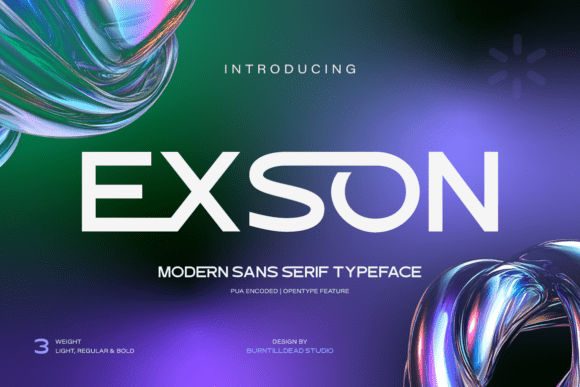
Introducing Exson Font: The Ultimate Modern Sans Serif Typeface
In the world of typography, fonts play a crucial role in conveying the tone and personality of a brand or design project. With the ever-evolving landscape of digital design, it’s essential to have a font that not only stands out but also adapts seamlessly to various contexts. This is where Exson Font comes in – a clean, modern sans serif typeface designed to bring a futuristic, bold presence to your projects.
What is Exson Font?
Exson is a thoughtfully crafted typeface that boasts a sleek, modern aesthetic. Its clean lines, unique letterforms, and bold presence make it an ideal choice for designers looking to add a touch of sophistication to their work. With three weights to choose from – Light, Regular, and Bold – Exson adapts perfectly to both display headlines and body text, ensuring versatility in a wide range of design applications.
Key Features of Exson Font
- Clean and Modern Design: Exson’s sans serif design ensures a clean and modern look that’s perfect for tech startups, digital interfaces, and editorial design.
- Three Weights: With Light, Regular, and Bold weights, Exson offers flexibility and adaptability for various design needs.
- Unique Letterforms: Exson’s sleek curves and unique letterforms, made possible by alternates and ligatures, make it eye-catching and distinctive.
- High Versatility: Exson is suitable for a wide range of design applications, including branding, tech startups, digital interfaces, editorial design, and more.
The Benefits of Using Exson Font
So, why choose Exson Font for your design projects? Here are just a few benefits of using this exceptional typeface:
- Adds a Modern Edge: Exson’s sleek, smart, and bold design ensures that your project stands out with a modern edge.
- Improves Readability: Exson’s clean lines and carefully crafted letterforms ensure excellent readability, even at small font sizes.
- Enhances Brand Identity: With Exson, you can create a strong, cohesive brand identity that resonates with your target audience.
- Streamlines Design Workflow: With Exson’s versatility and adaptability, you can use it across various design projects, streamlining your workflow and reducing the need for multiple fonts.
Exson Font in Action: Design Applications
Exson’s versatility makes it suitable for a wide range of design applications. Here are some examples of how Exson can elevate your design projects:
- Branding: Use Exson to create a bold, modern brand identity that stands out in a crowded market.
- Tech Startups: Exson’s futuristic, sleek design makes it perfect for tech startups looking to establish a strong online presence.
- Digital Interfaces: Exson’s clean lines and excellent readability make it an excellent choice for digital interfaces, such as mobile apps, websites, and software.
- Editorial Design: Exson’s unique letterforms and bold presence make it ideal for editorial design, including magazines, newspapers, and blogs.
Tips for Using Exson Font Effectively
To get the most out of Exson Font, here are some tips for using it effectively:
- Experiment with Weights: Use Exson’s three weights to create visual hierarchy and add depth to your design.
- Pair with Other Fonts: Exson pairs well with other sans serif fonts, so don’t be afraid to experiment with font combinations.
- Adjust Letter Spacing: Adjust letter spacing to create a more open, airy feel or a denser, more compact look.
- Take Advantage of Alternates and Ligatures: Use Exson’s alternates and ligatures to add visual interest and create a unique design.
In conclusion, Exson Font is a versatile, modern sans serif typeface that’s perfect for designers looking to add a touch of sophistication to their work. With its clean lines, unique letterforms, and bold presence, Exson is ideal for a wide range of design applications, from branding and tech startups to digital interfaces and editorial design. By incorporating Exson into your design workflow, you’ll be able to create stunning, modern designs that stand out in a crowded market.